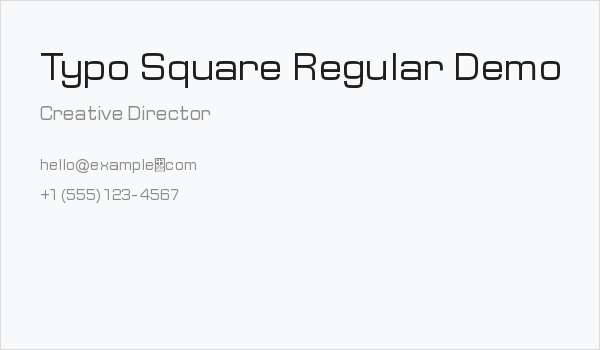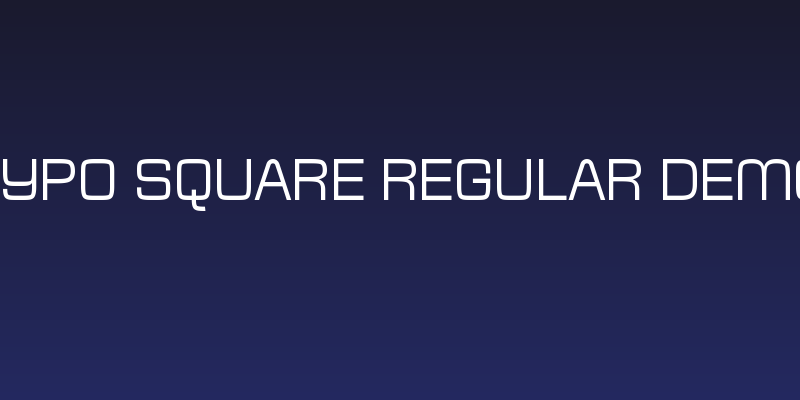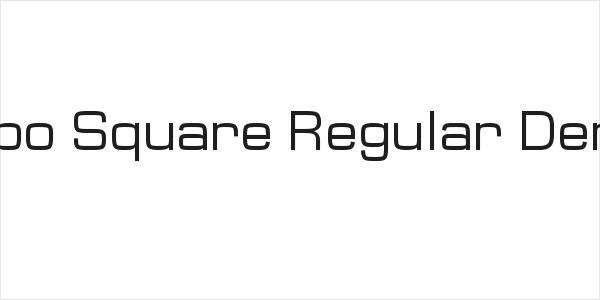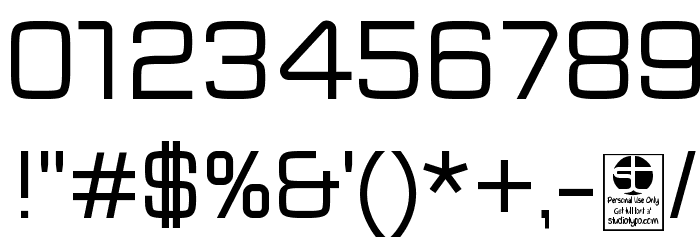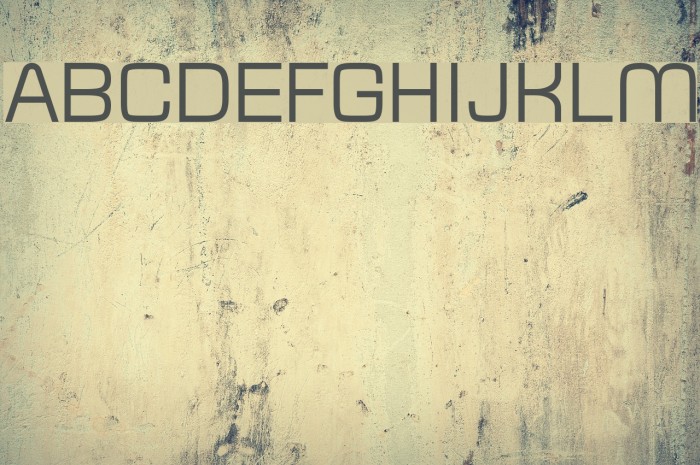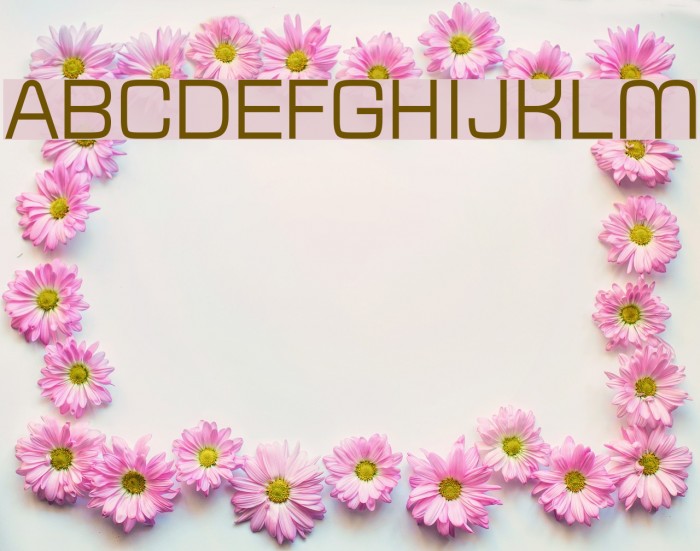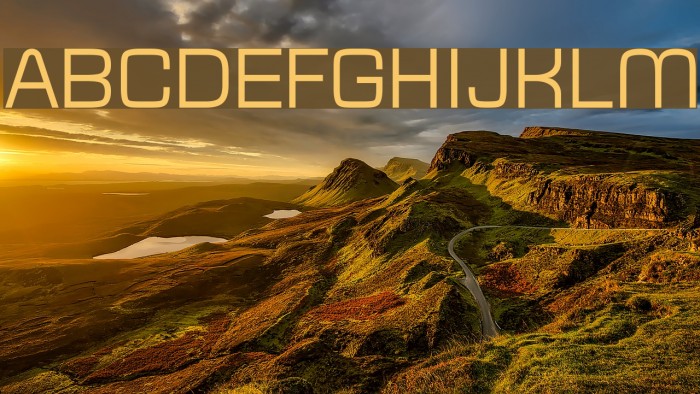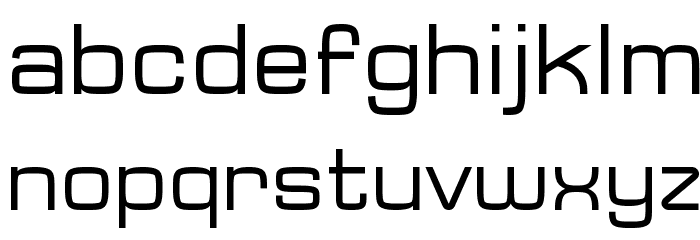
Typo Square Regular Demo Font
Typo Square Regular Demo Description
This font features a clean, geometric design with a modern aesthetic. The characters are constructed with uniform stroke widths, giving it a balanced and harmonious appearance. The uppercase and lowercase letters maintain a consistent height, contributing to its orderly and structured look. The numerals and special characters are designed to complement the letterforms, ensuring readability and visual coherence. The overall style is minimalist, making it suitable for a variety of applications where clarity and simplicity are desired.
| Proposed Projects | Ideal for tech branding, modern web design, user interfaces, and minimalist print materials. |